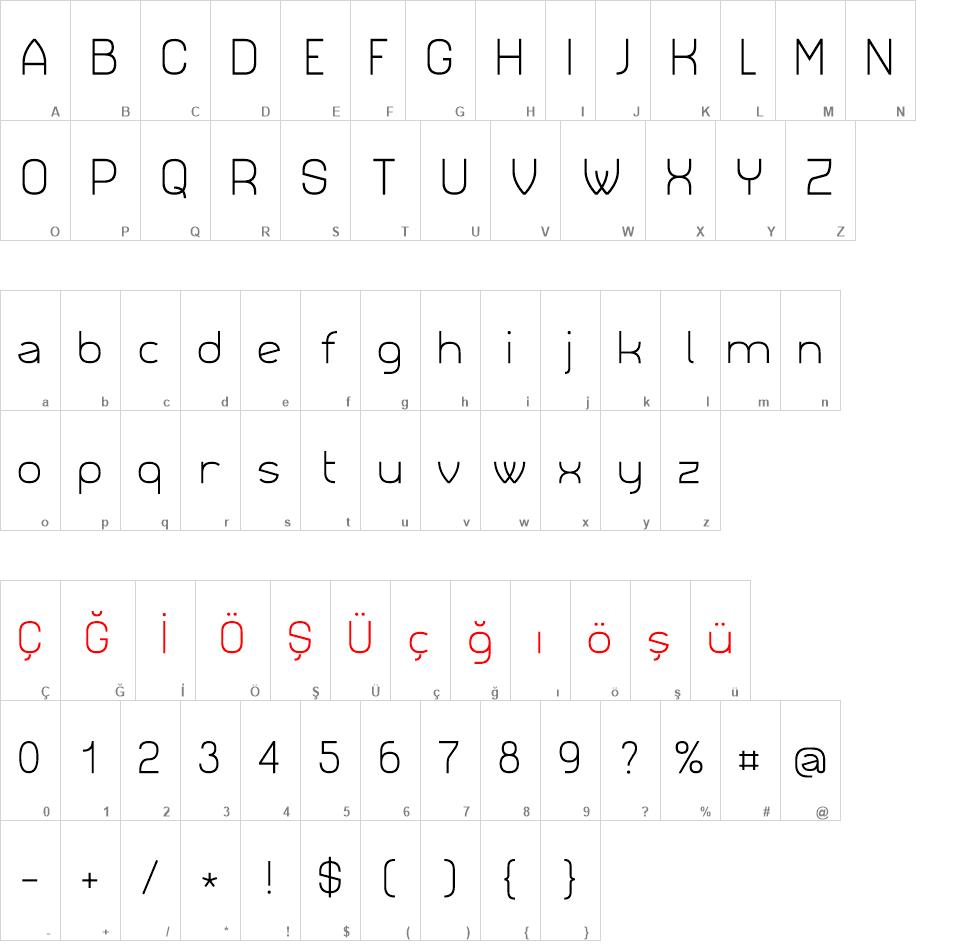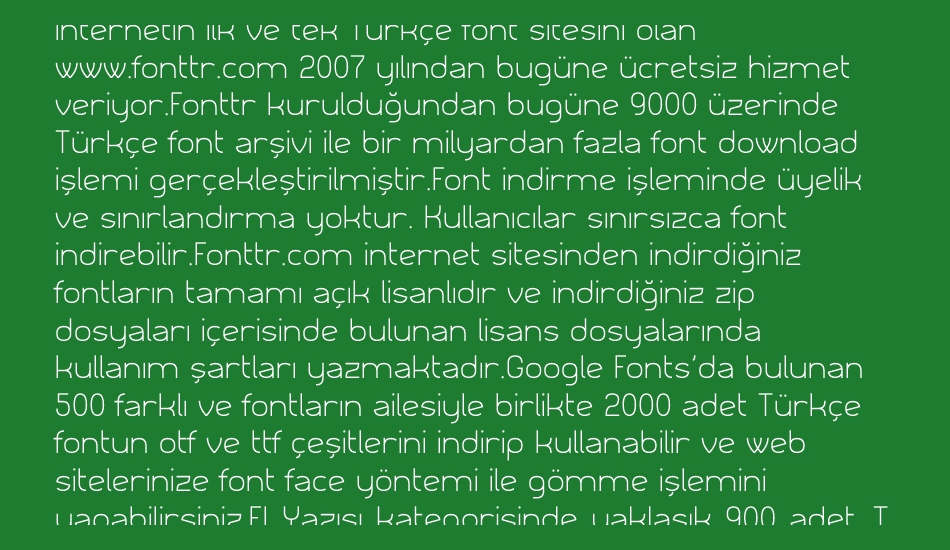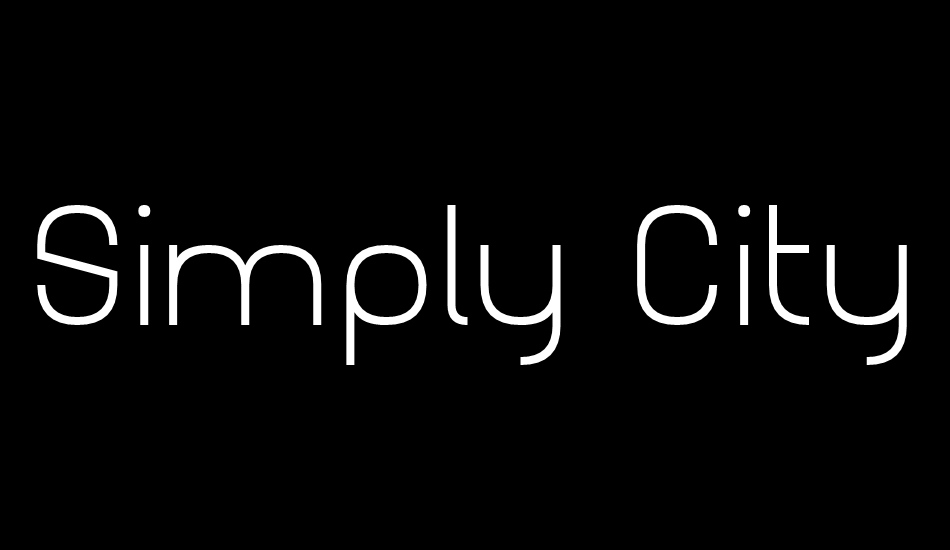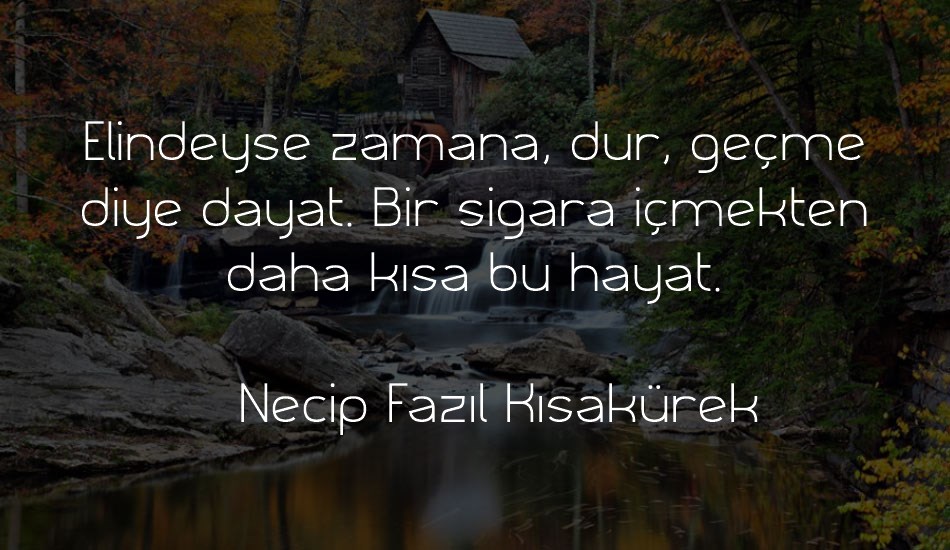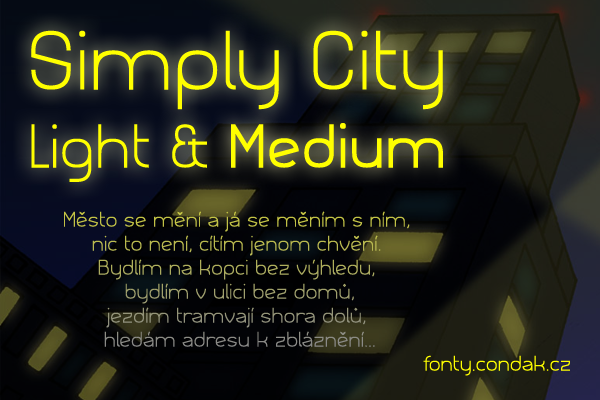
Simply City font
Simply City
Round font with a gentle retro touch. It comes in two versions - Light is the default, Medium should help with smaller text